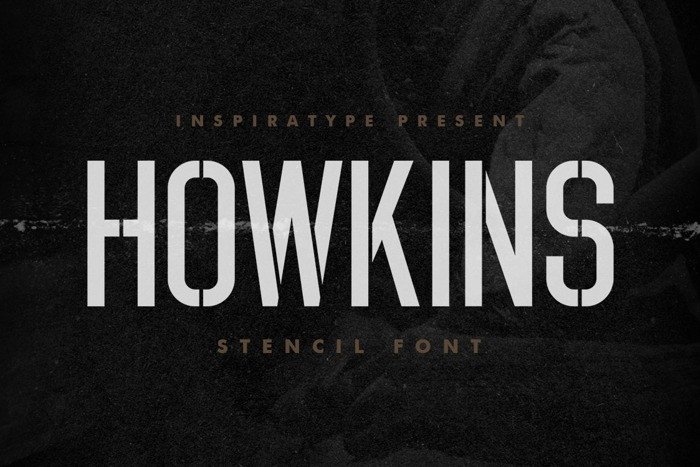
HOWKINS Display Font
HOWKINS Display Font took the serif style into the training, and becoming the best marksman in the field. It’s a strong stencil cutout font that emphasize the military shape you took. Comes with uppercase, lowercase, numerals, punctuations and so many variations on each character include OpenType alternates, common ligatures and also additional swash to let you customize your designs. Perfect to use for Logotype, Letterhead, Poster, Apparel Design, Label and etc.